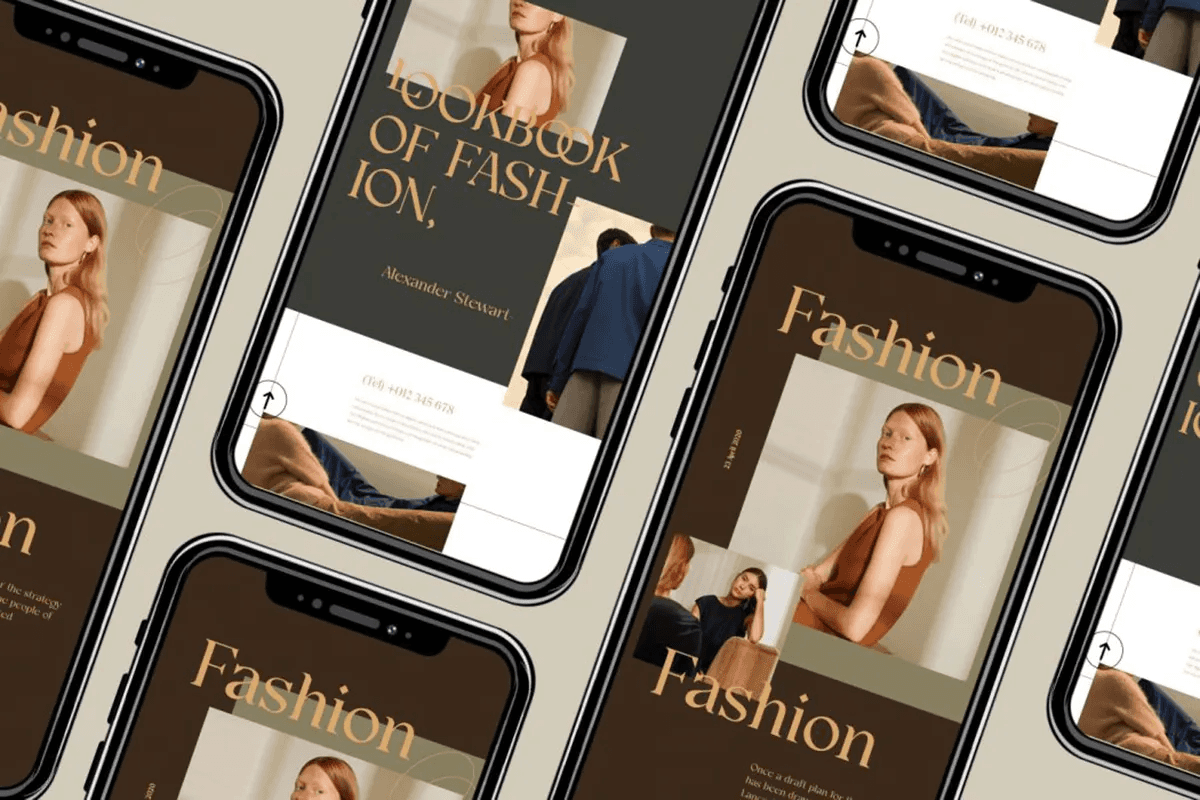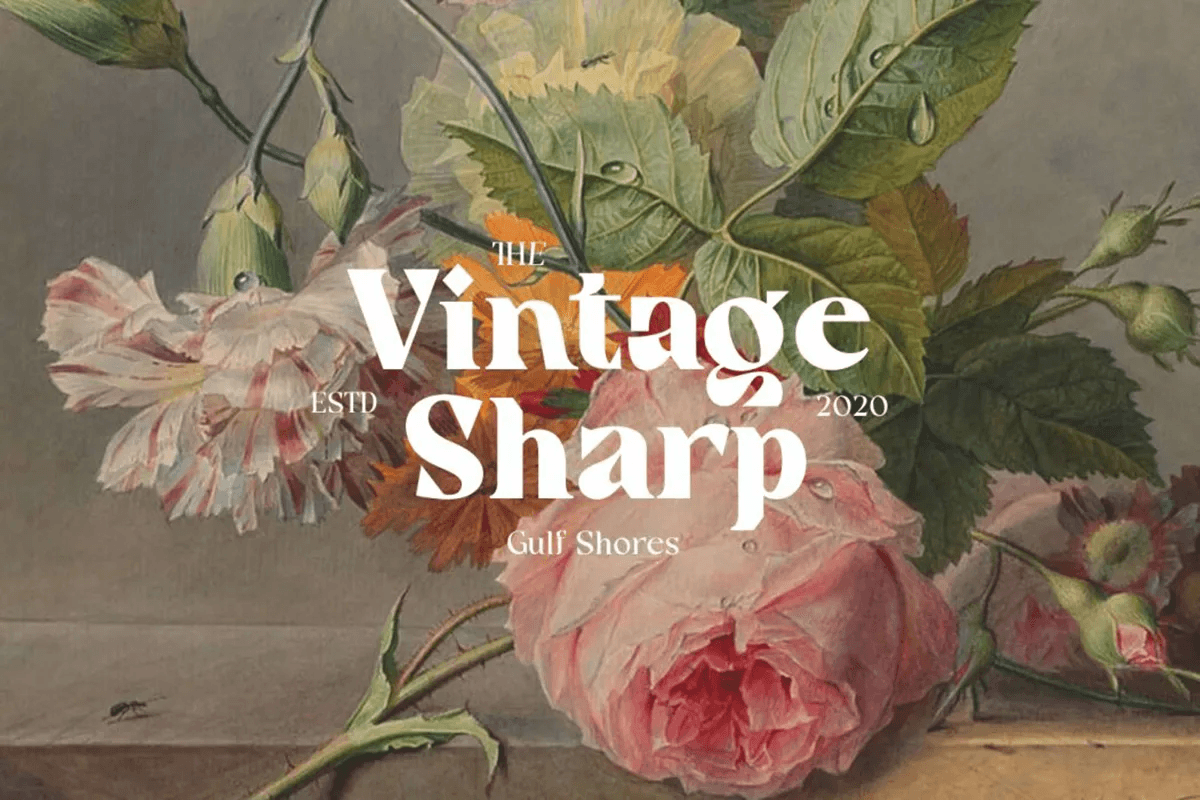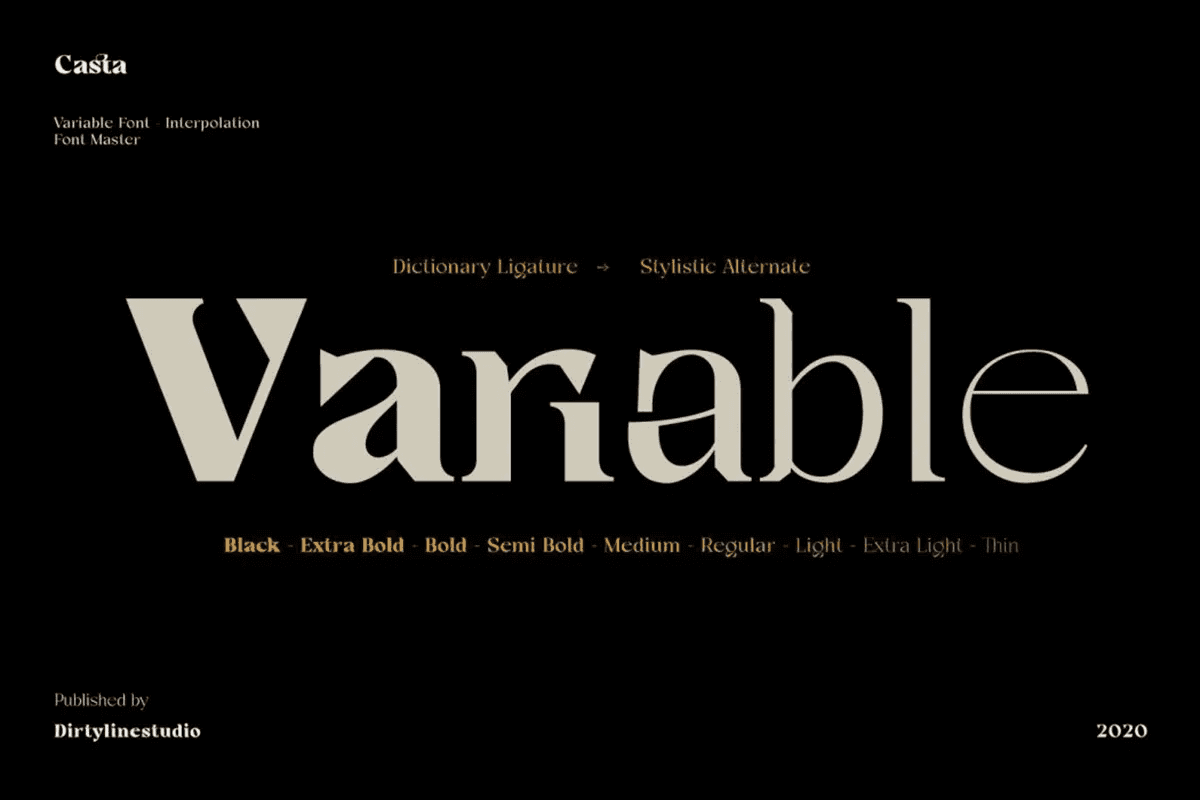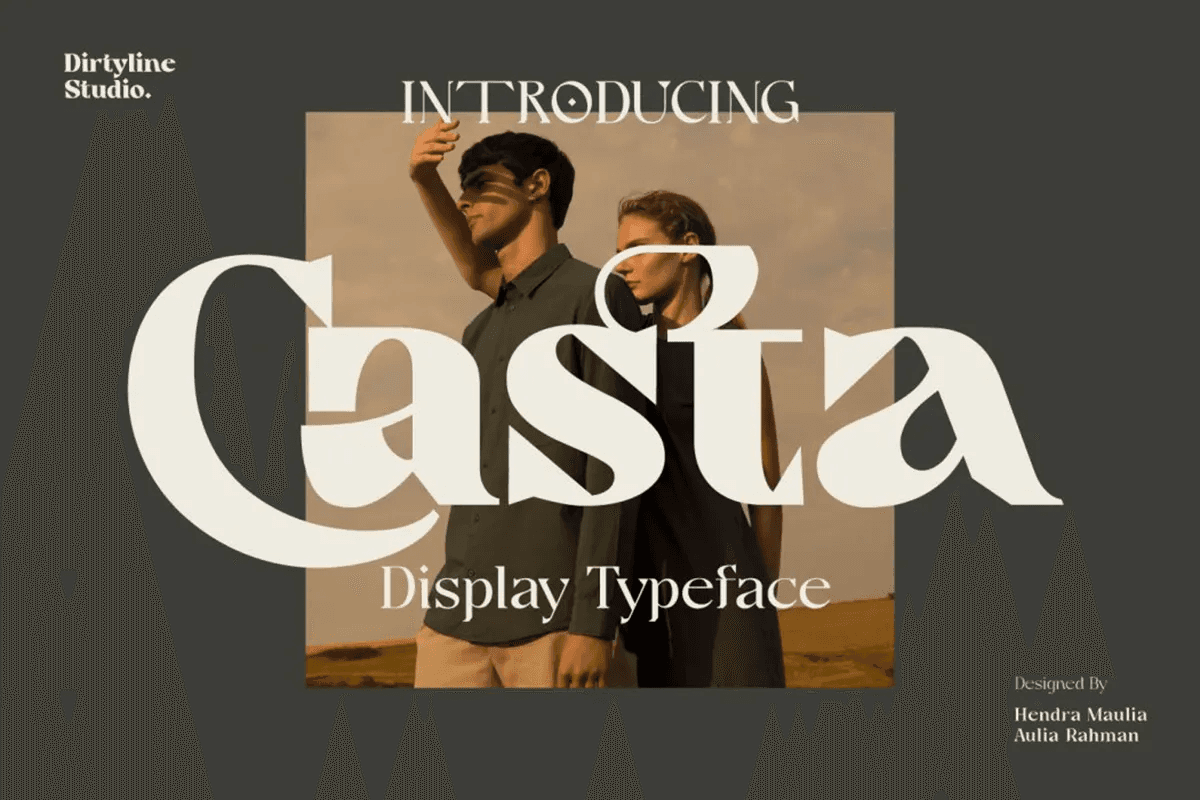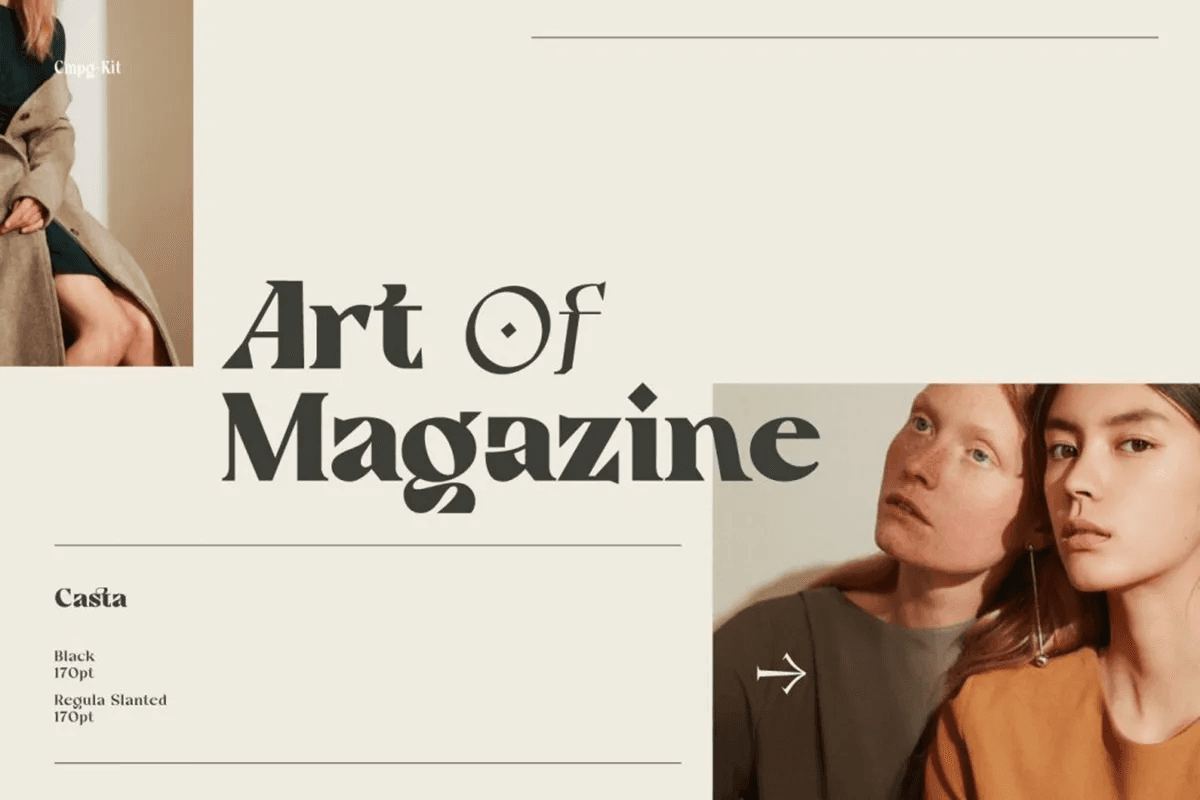
Casta Free Display Typeface
Casta Free Display Typeface is the part of a strong and modern display font family. This typeface both impressive at display sizes and easily readable in text size, while the sharp shapes of the triangular serifs and the distinctive letter shapes show their strength in logo design and impressive editorial use.